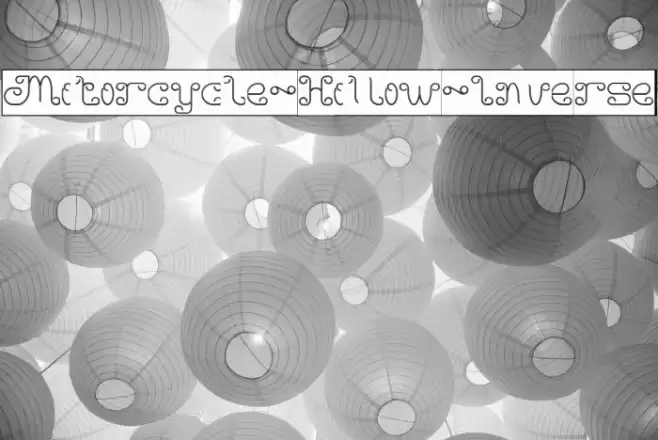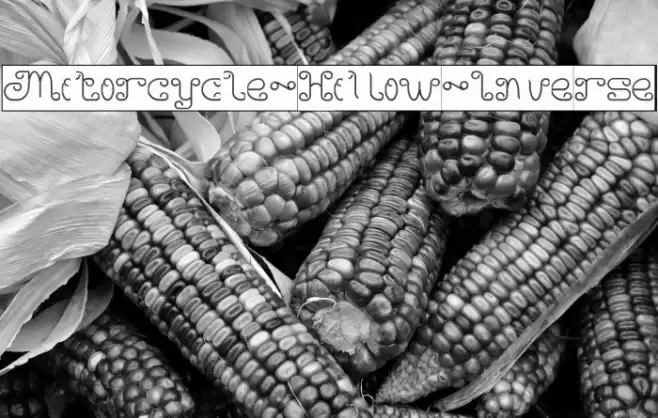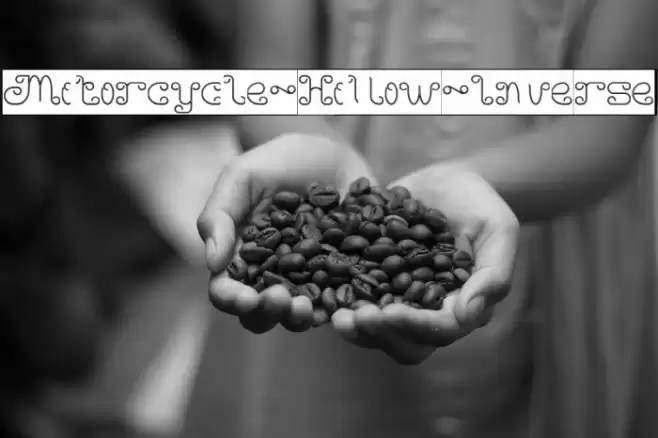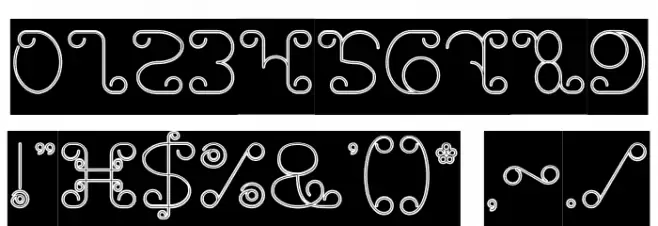
Motorcycle-Hollow-Inverse Font
Motorcycle-Hollow-Inverse Description
This font features a unique hollow design with an inverse style, where the outlines of each character are emphasized, creating a striking visual effect. The characters are intricately designed with swirling, decorative elements that give them a whimsical and playful appearance. The uppercase and lowercase letters maintain a consistent style, with rounded edges and a flowing, cursive-like quality. Numbers and special characters are equally ornate, ensuring a cohesive look across all text elements. The font's distinctiveness makes it ideal for creative and artistic projects where a bold statement is desired.
A decorative, hollow font with swirling, ornate characters from Uncategorized fonts.
- Proposed Projects: Ideal for artistic projects, posters, invitations, and branding that require a bold, decorative touch.
- Use Case: Headlines, Logos, Artistic projects